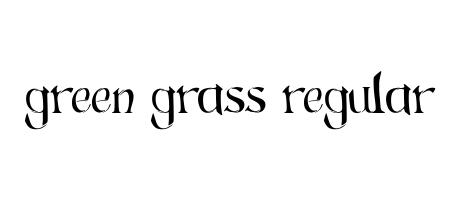
Grass
By Woodcutter
Green Grass Regular is a charming, slightly whimsical serif typeface. Its lowercase letters possess a gentle, almost handwritten quality, while the capitals maintain a more formal structure. The overall effect is friendly and approachable, hinting at both elegance and casualness. It's a font that feels both classic and contemporary.
Green Grass Regular